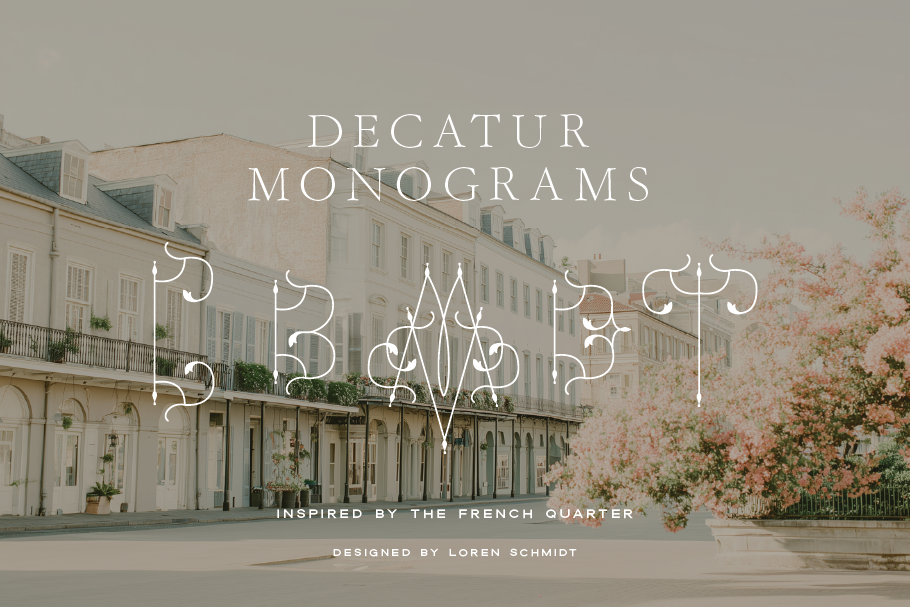
Decatur Monogram Font
Decatur is a refined ornamental monogram font inspired by the intricate iron scrollwork and architectural romance of New Orleans’ historic French Quarter. Designed as a modular lettering system, each character is thoughtfully constructed to layer, interlock, and compose elegant custom monograms with ease. The delicate balance of structure and flourish allows designers to create heirloom-quality marks perfect for wedding stationery, branding, and crest design.
Decatur was created for designers who value timeless detail, historic influence, and artistic flexibility, offering a sophisticated foundation for monograms that feel both classic and uniquely bespoke.